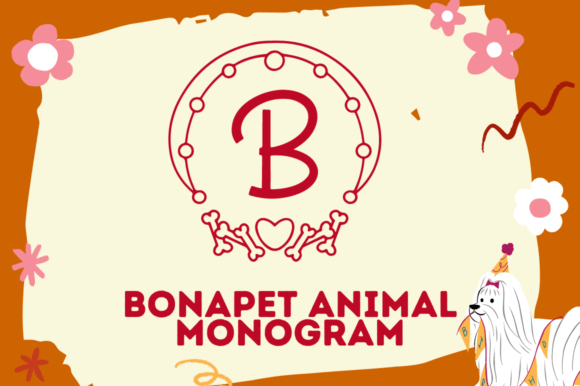
Designing with a Touch of Whimsy
Have you ever found yourself doodling in a notebook, letting your imagination run wild with playful scribbles and whimsical patterns? For designers, those carefree moments can spark a new idea or inspire a fresh perspective. For me, it was doodling animals that led me to discover the perfect font for creating custom gifts with a personal touch – the Bonapet Animal Monogram Font.
This adorable font is designed to bring a smile to anyone’s face, especially those with a love for animals. With two styles to choose from, simply switching between uppercase and lowercase letters can give your design a unique twist. The Bonapet Animal Monogram Font is a valuable tool for designers looking to add a touch of personality to their projects, from textiles and gifts for kids to custom home decor for cat lovers and beyond.
Bonapet Animal Monogram Font Key Features
- Unique Character Set: The Bonapet Animal Monogram Font features a distinctive set of monogrammed animal characters, ideal for designs and illustrations.
- Style Options: Bonapet Animal Monogram Font offers a range of style options, including bold, regular, and outline styles, to suit various design needs.
- Customization: The font is fully editable, allowing designers to customize the animal characters and monograms to suit their specific design requirements.
Review of Bonapet Animal Monogram Font
Overall, I’m quite impressed with Bonapet Animal Monogram Font. The quirky and playful design is perfect for creating unique animal-themed projects, such as pet business logos or social media graphics. ✨
The font is well-suited for digital applications, and the animal silhouettes add a fun touch to any design. The font also includes a range of animal options, making it easy to find the perfect match for your project. ✨
- ⚠️ Limited character set: While the font includes a range of animal silhouettes, it may not be suitable for projects that require a large number of custom characters.
- ⚠️ Not ideal for print applications: The font’s design may not be suitable for print applications, as the animal silhouettes may not be as clear or crisp as other fonts.
- ⚠️ Limited customization options: While the font is easy to use, it may not be possible to customize the animal silhouettes or adjust the design to fit your specific needs.
In conclusion, Bonapet Animal Monogram Font is a great option for digital projects that require a fun and playful touch. However, it may not be the best choice for projects that require a large number of custom characters or print applications. Overall, I’d give it 4 out of 5 stars.
Alternatives to Bonapet Animal Monogram Font
1. Pinyon Script
Pinyon Script is a handwritten script font that offers a whimsical and playful feel. It is suitable for designs that require a touch of elegance and sophistication, such as wedding invitations, greeting cards, and packaging. Compared to Bonapet Animal Monogram Font, Pinyon Script has a more refined and polished look, making it a better choice for formal designs.
Great Vibes is a modern calligraphy font that exudes a sense of relaxation and calmness. It is ideal for designs that require a laid-back and casual tone, such as beach-themed promotions, wellness brands, and travel websites. In contrast to Bonapet Animal Monogram Font, Great Vibes has a more fluid and organic feel, making it suitable for designs that need a touch of natural elegance.